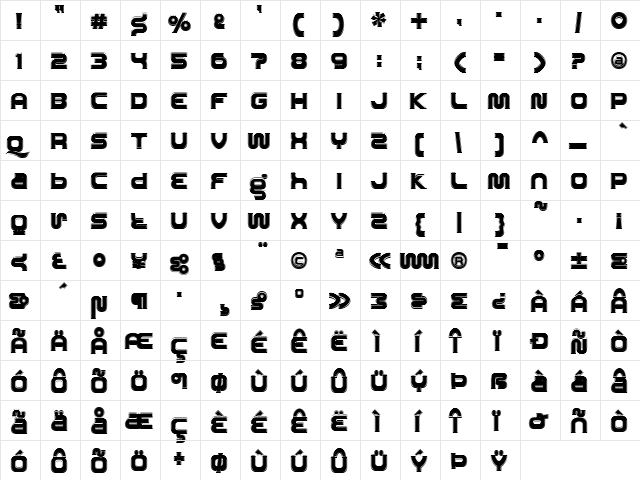
Roland Regular
Design Context for Roland Typeface
Roland is a composed and adaptable typeface that performs quietly and consistently across a wide range of design contexts.
Pro Tip: Pair Roland with a font of contrasting weight or personality to build a more expressive typographic hierarchy.